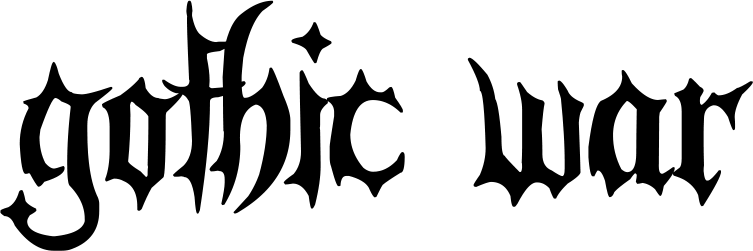
Gothic War Font
Just take a look at the glamorous ancient traits of this gothic font; angular, pointy, and jagged design that can be impressive to make your typography stand out in a crowd.
Although Gothic War leaves out uppercase letters, its uncommon, sharp, and ragged letterforms in the company of amazing vintage touch are staying to put their best in designing any headlines, posters, branding, TV shows, and more with the impressive outdated and surrey effects.
Gothic War